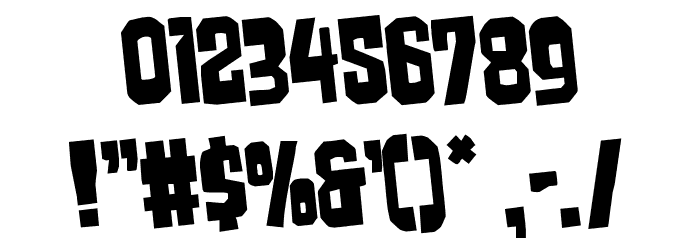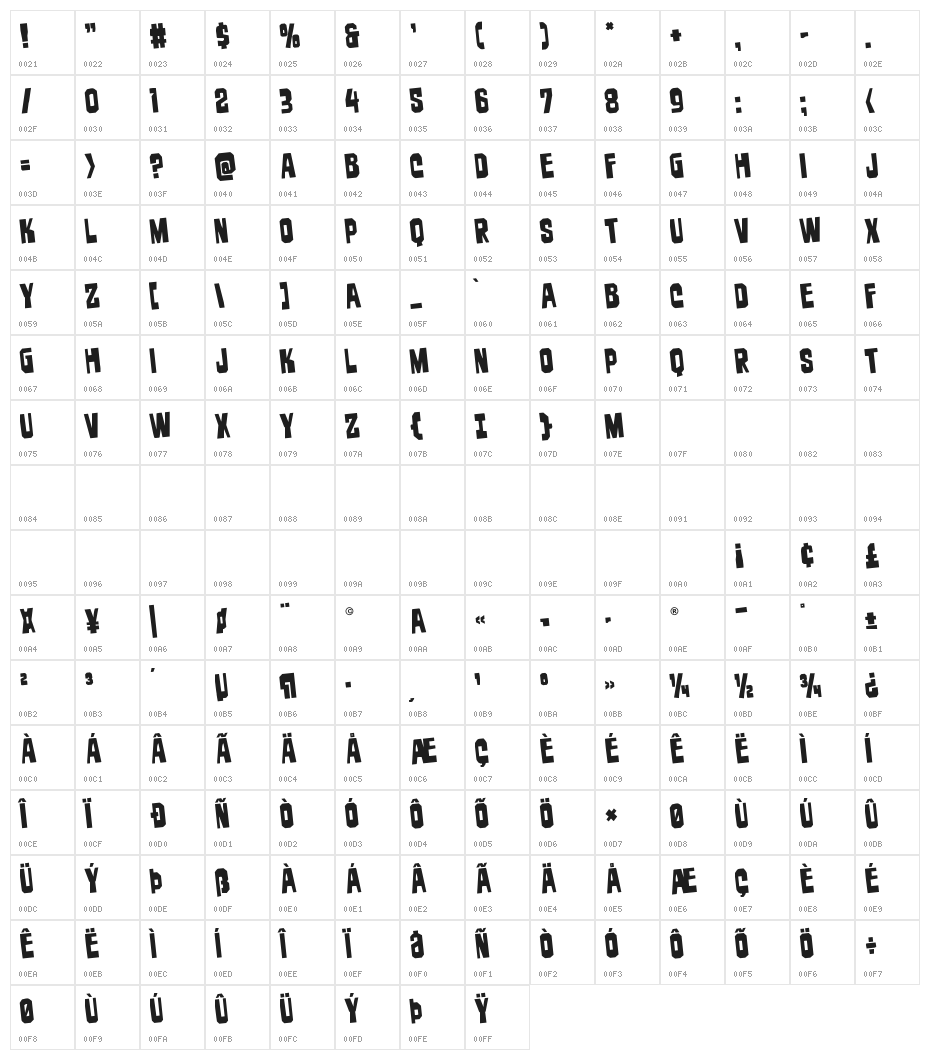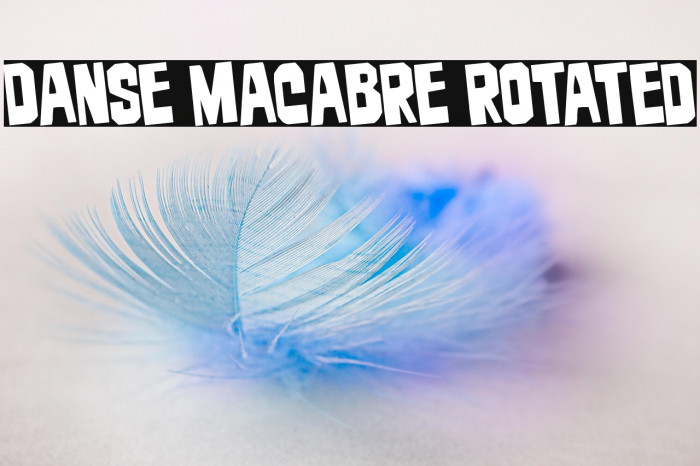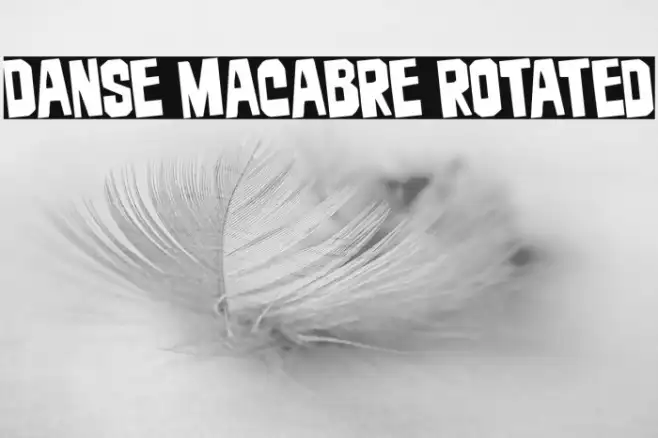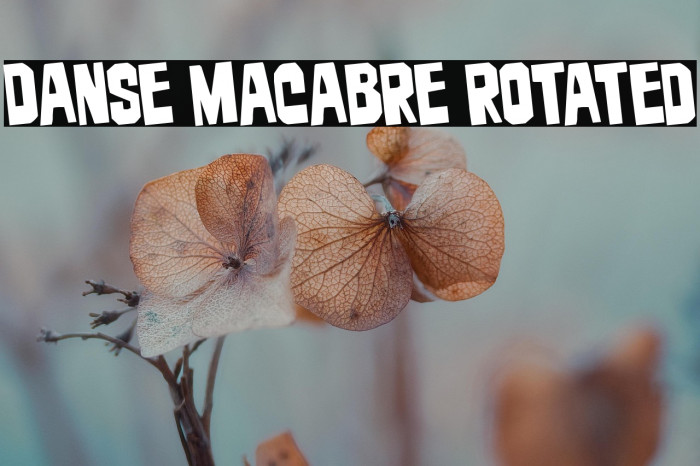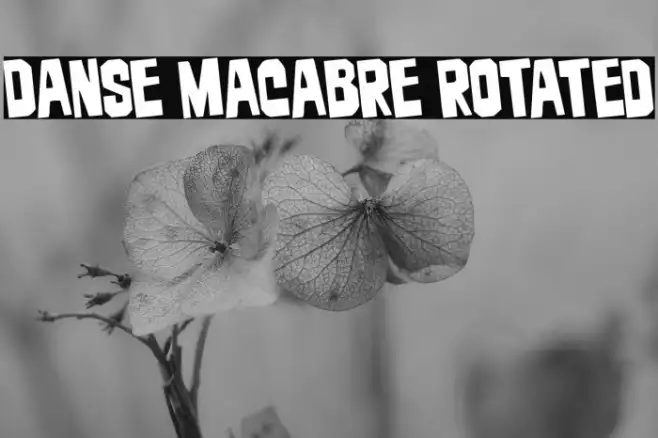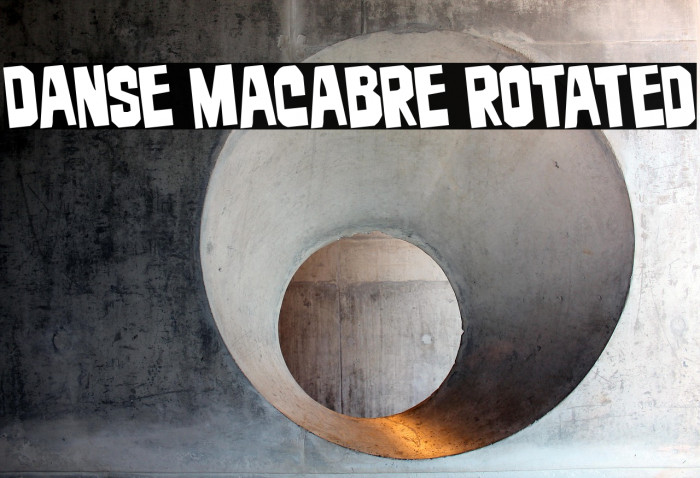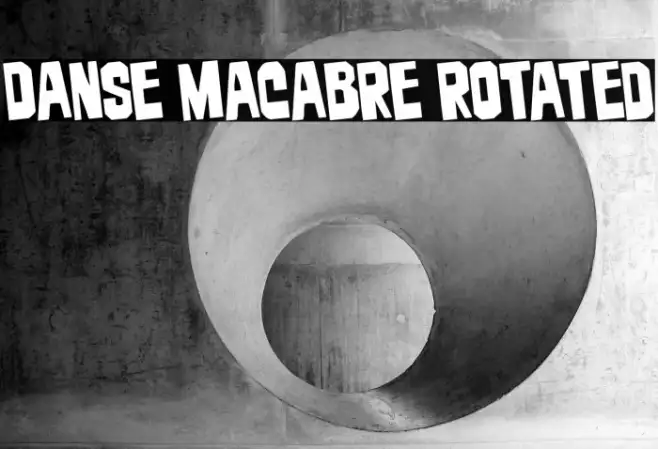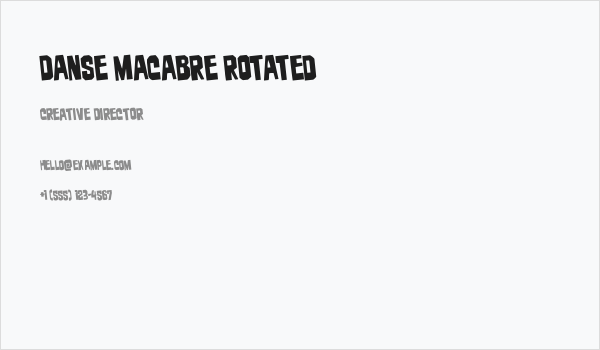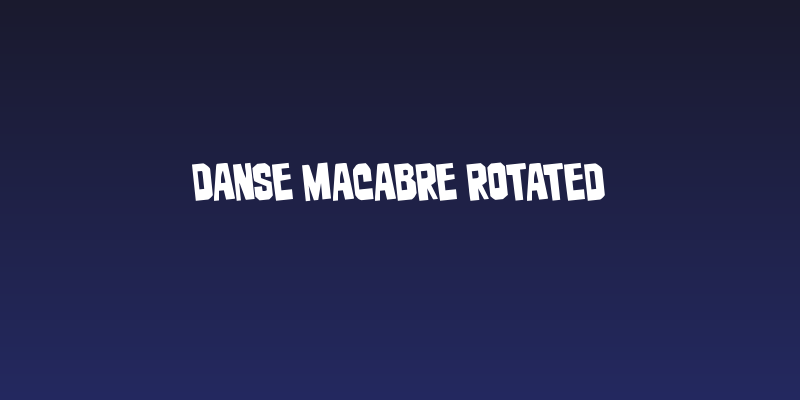
Danse Macabre Rotated Font
Danse Macabre Rotated Description
This font features a bold and dramatic style, characterized by its heavy weight and angular, geometric shapes. The letters are slightly condensed, giving a compact and impactful appearance. The high contrast between thick and thin strokes adds to its striking visual presence. Each character has a unique, edgy design, contributing to an overall modern and rebellious aesthetic. The font's sharp edges and bold lines make it ideal for attention-grabbing headlines and titles. Its distinctive style is suitable for projects that require a strong and assertive visual identity.